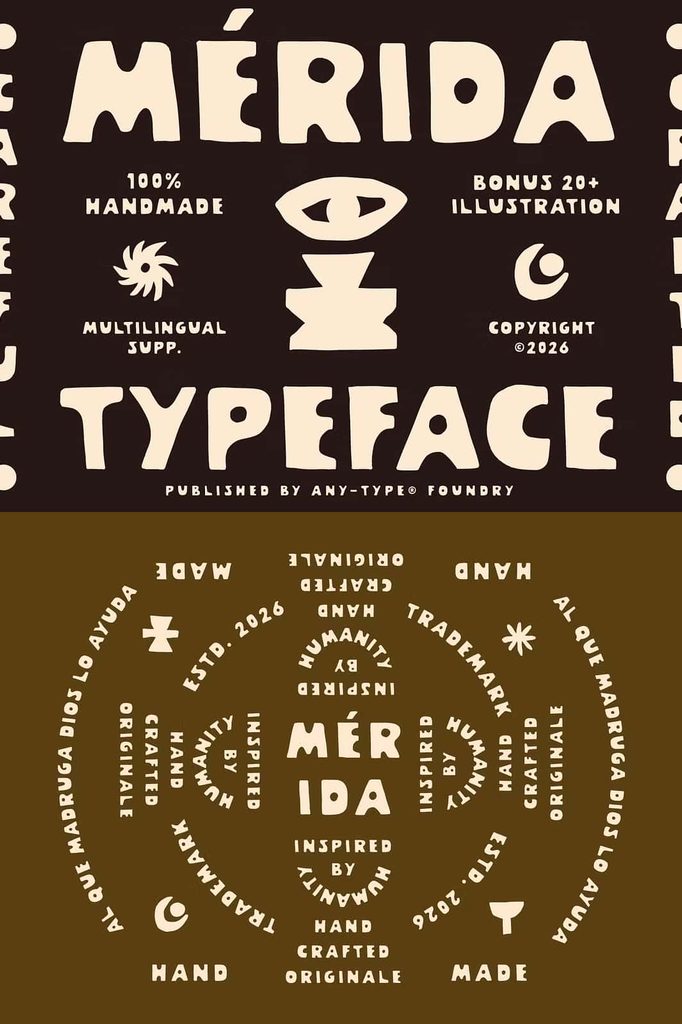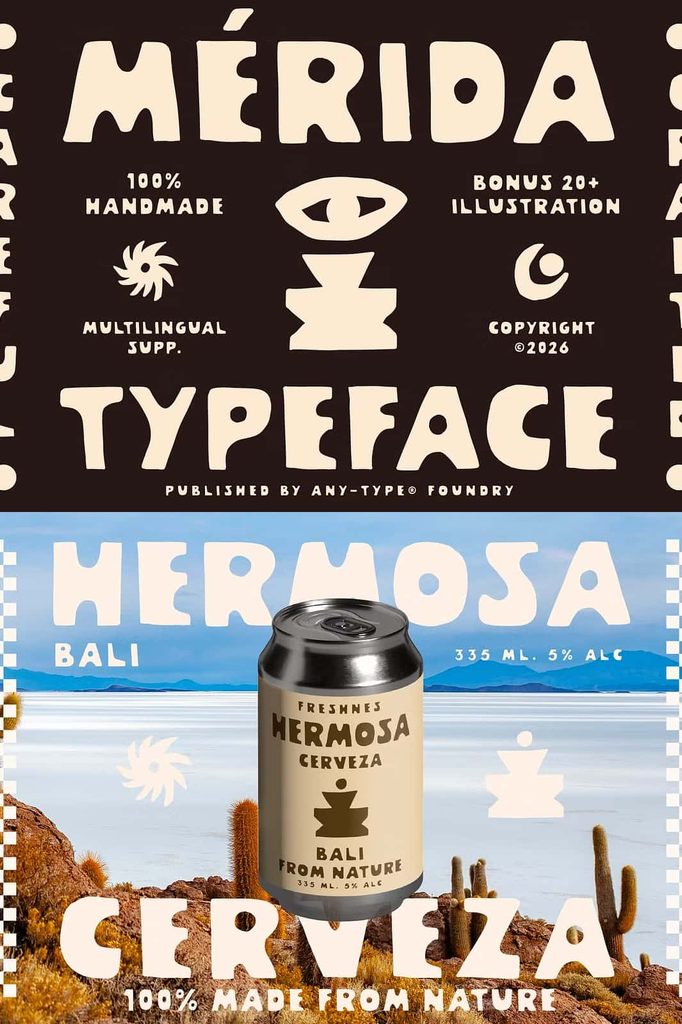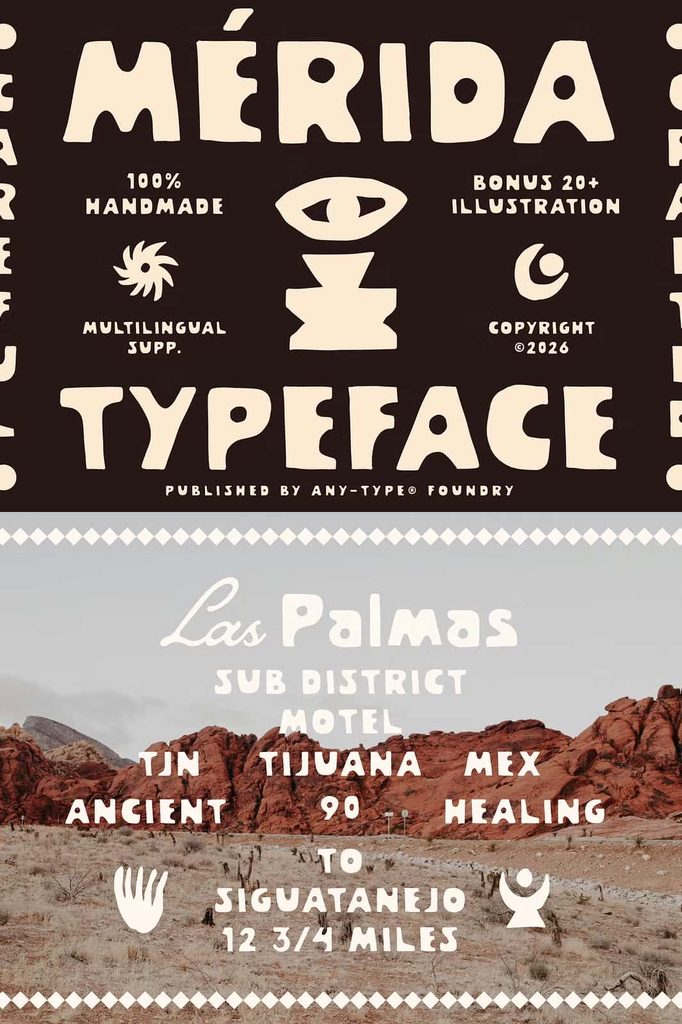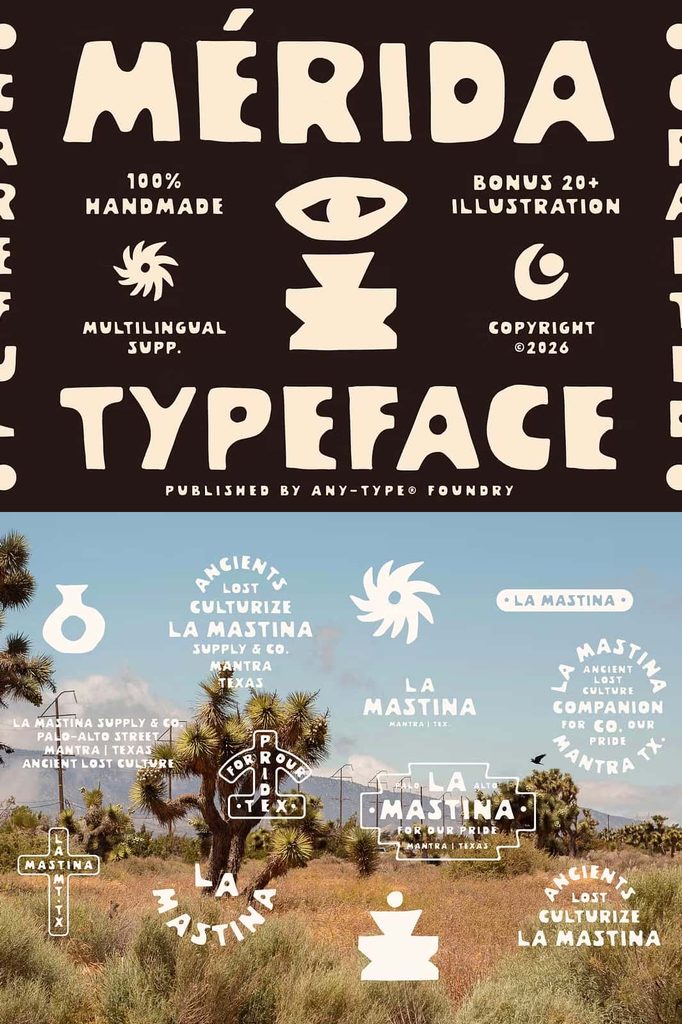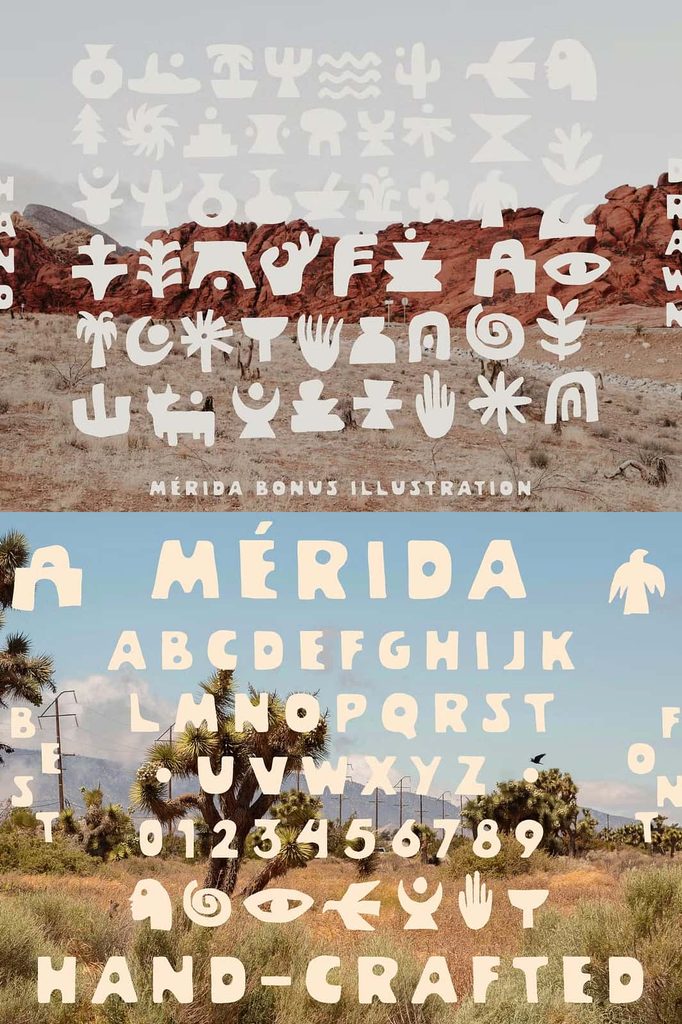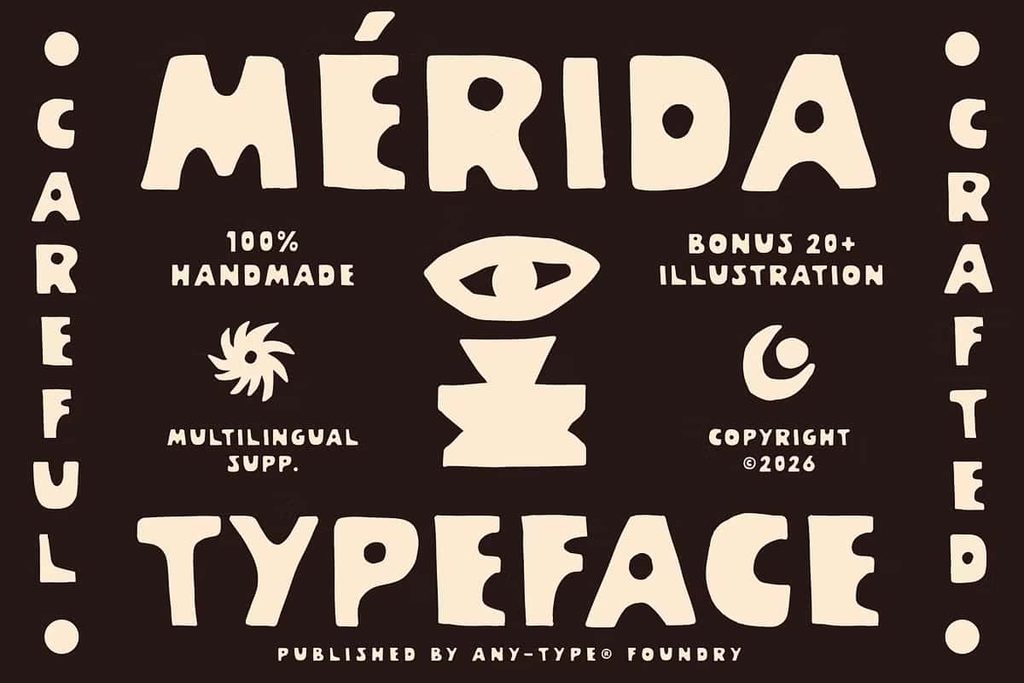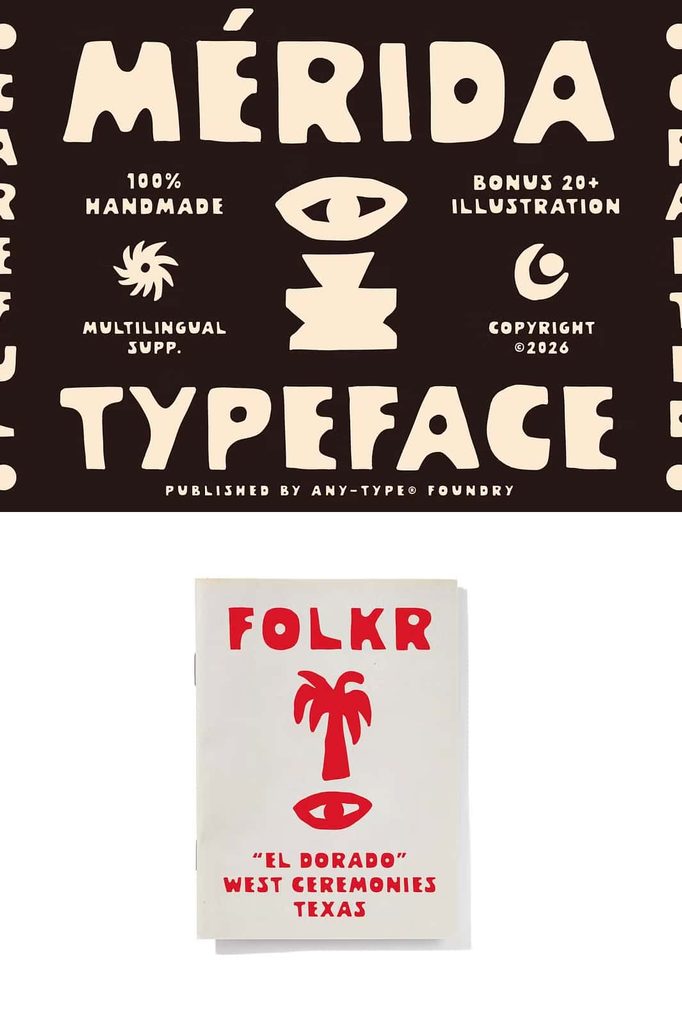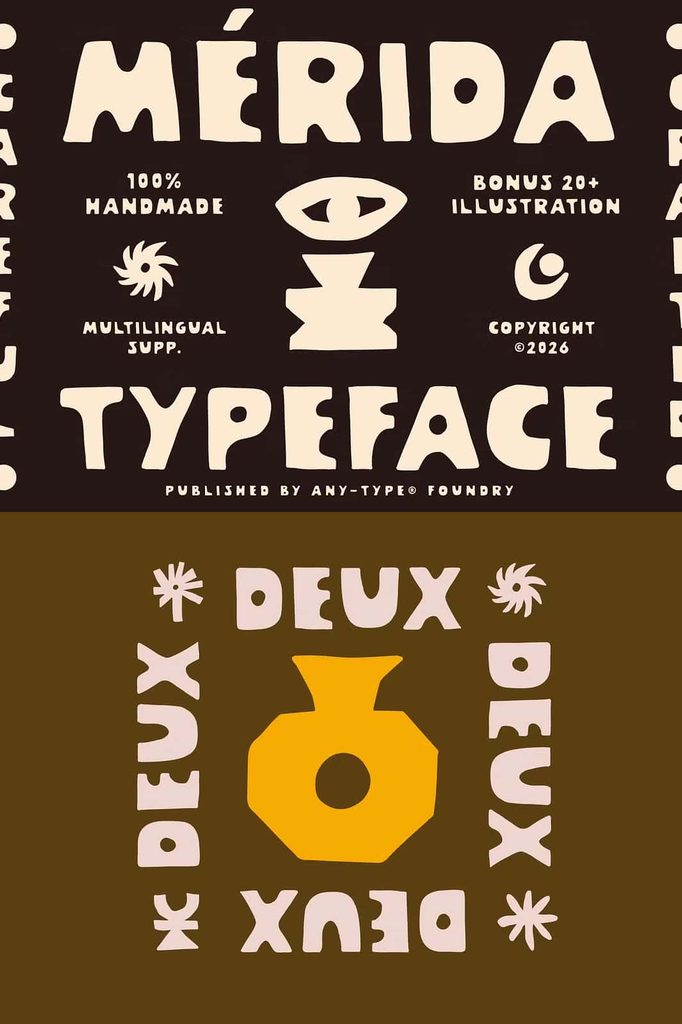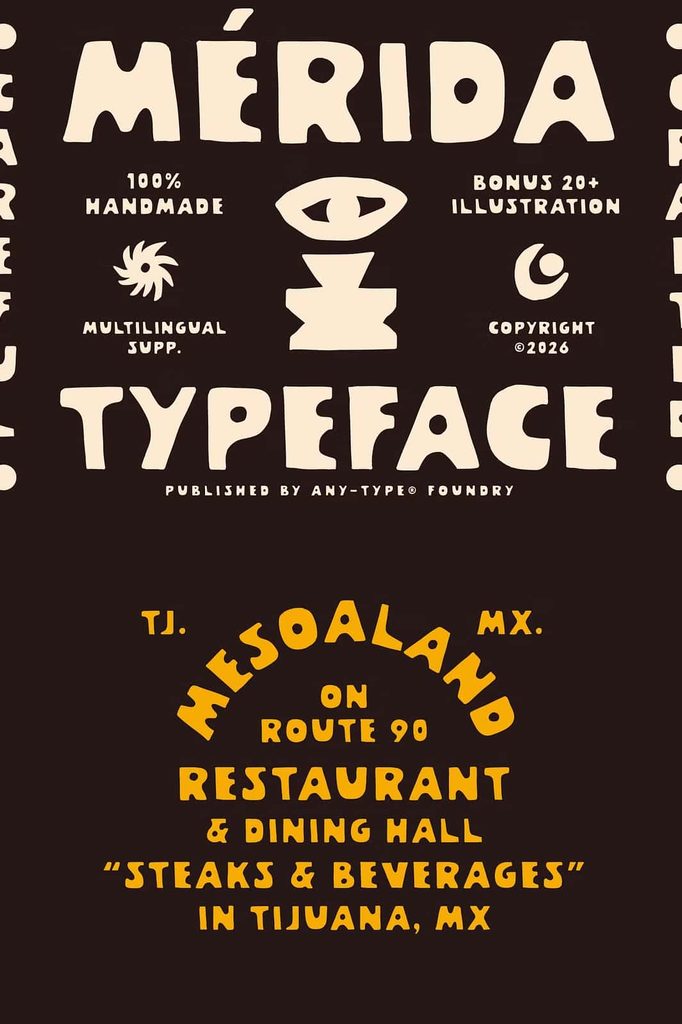
Merida Font – A Bold Handmade Display Typeface
Merida Font brings warmth, personality, and handcrafted character to modern typography. Inspired by folk art, vintage signage, and playful organic shapes, Merida transforms ordinary lettering into expressive visual artwork. Every character carries the charm of handmade design, featuring imperfect curves, subtle irregularities, and carefully crafted shapes that create a natural human touch.
Rather than relying on perfectly uniform geometry, Merida embraces controlled imperfections. These distinctive details give the typeface an authentic artisanal quality and help each word feel more personal. The bold letterforms establish a strong visual presence, while the friendly proportions maintain excellent readability. This combination makes Merida an effective choice for designers who want their typography to communicate creativity, warmth, and confidence.
Merida works especially well when a project needs personality. Use it for branding, packaging, posters, logos, apparel, album covers, editorial headlines, social media graphics, and other creative projects. Its expressive appearance allows designers to create memorable compositions while maintaining a clear and approachable typographic structure.
Inspired by Folk Art and Vintage Signage
Merida draws inspiration from the visual language of folk art and traditional hand-painted signs. These influences give the typeface a nostalgic personality without limiting it to historical design styles. Its organic shapes and irregular details create the feeling of lettering made by hand, giving contemporary projects a more authentic and approachable appearance.
Vintage signage often communicates through strong silhouettes, simple forms, and memorable lettering. Merida captures these qualities and adapts them for modern graphic design. Its bold construction helps headlines and brand names command attention, while its handmade details prevent the typography from feeling generic or mechanical.
Use Merida alongside vintage illustrations, textured backgrounds, handcrafted graphics, or simple layouts to strengthen its retro-inspired character. Alternatively, place it in a clean contemporary composition to create an interesting contrast between handmade typography and modern design.
A Handmade Typeface with Organic Character
One of Merida’s defining qualities is its organic construction. The letters feature imperfect curves and charming irregularities that mimic the natural movement of hand-drawn lettering. These details give the typeface an approachable personality that polished digital fonts often struggle to reproduce.
The handmade character also helps Merida communicate authenticity. It can make a small brand feel more personal, a product package feel more crafted, or a poster feel more expressive. The typeface does not simply display words; it contributes an emotional quality to the overall design.
Because the imperfections remain carefully controlled, Merida retains a strong sense of structure. Designers can therefore use it confidently for large display text without sacrificing readability or visual balance.
Bold Letterforms That Stand Out
Merida uses bold silhouettes to create immediate visual impact. Its substantial forms make headlines, logos, and short phrases easy to notice, even when placed within busy compositions. This strong presence makes the typeface particularly effective for display typography.
Use large Merida lettering to create attention-grabbing titles and prominent brand names. You can also experiment with spacing, scale, and alignment to create different visual moods. Tight spacing can produce a compact and energetic appearance, while generous spacing can emphasize the unique shapes of individual characters.
The bold construction also allows Merida to work effectively across both print and digital applications. Its distinctive forms can remain recognizable on packaging, posters, merchandise, social media graphics, websites, and promotional materials.
Perfect for Branding and Logo Design
Merida Font provides an excellent foundation for distinctive branding. Its handmade personality helps businesses move away from generic visual identities and create a more memorable presence. Use it for wordmarks, brand names, product titles, badges, labels, and supporting promotional graphics.
Merida works particularly well for brands connected to handmade goods, food and beverage, lifestyle products, creative businesses, fashion, music, outdoor culture, and independent retail. Its friendly appearance can help a brand feel approachable while its bold structure communicates confidence.
For logo design, consider using Merida as the primary display typeface and pairing it with a simpler supporting font. This approach creates a clear hierarchy while allowing the handmade lettering to remain the visual focus.
Merida Font for Packaging Design
Packaging designers can use Merida to create products that immediately attract attention. Its bold shapes work especially well on labels, boxes, bags, bottles, wrappers, and product tags. The handcrafted appearance can reinforce concepts such as authenticity, small-batch production, creativity, and traditional craftsmanship.
Combine Merida with simple illustrations, organic patterns, or textured surfaces to develop a cohesive handmade aesthetic. You can also place the typeface against a clean background to let its irregular letterforms provide the primary visual interest.
Create Eye-Catching Posters
Merida makes a strong choice for posters and promotional artwork because it naturally creates a focal point. Use the typeface for event titles, campaign headlines, announcements, or short statements that need immediate attention.
Its expressive personality works particularly well with bold compositions and playful layouts. Experiment with oversized lettering, curved arrangements, layered typography, or contrasting supporting elements to create dynamic poster designs.
Apparel and Merchandise Design
Bring Merida Font into apparel and merchandise projects to create bold graphics with a handcrafted feel. Apply it to T-shirts, sweatshirts, hats, tote bags, stickers, posters, patches, and other promotional products.
The typeface can help merchandise feel more personal and creative. Its strong silhouettes remain effective when printed at different sizes, while the handmade details add visual character that helps designs stand apart from standard commercial typography.
Album Covers and Editorial Headlines
Merida can also add personality to album covers, music posters, magazine headlines, book covers, and editorial artwork. Its expressive forms can establish a distinctive visual mood before the audience reads the supporting content.
For album artwork, pair Merida with photography, illustration, or textured graphics to create a memorable visual identity. For editorial layouts, use it selectively for major headlines and combine it with a clean text font for longer passages. This strategy allows Merida to make an impact without overwhelming the page.
Ideal Creative Projects for Merida
- Brand identities and wordmarks
- Logo and badge designs
- Product packaging and labels
- Posters and promotional graphics
- Apparel and merchandise
- Album covers and music artwork
- Magazine and editorial headlines
- Handmade product branding
- Vintage-inspired advertising
- Event graphics and signage
- Creative personal projects
Why Choose Merida Font?
Merida stands apart by combining bold typography with authentic handmade character. Its folk-art inspiration, vintage signage influence, organic shapes, and controlled imperfections create a distinctive personality that can elevate many types of design.
The typeface gives designers a practical balance between expression and readability. Its strong silhouettes attract attention, while its friendly proportions keep words clear and approachable. This makes Merida suitable for projects that need to communicate creativity without sacrificing usability.
Most importantly, Merida adds a human quality to digital design. Its irregular curves and handcrafted details make compositions feel less mechanical and more personal. Whether you create a small brand identity or a large promotional campaign, the typeface can help establish a visual voice that audiences remember.
Bring Handmade Personality to Your Designs
Merida Font offers a bold and expressive approach to display typography. By combining the charm of folk art, the nostalgia of vintage signage, and the playful character of organic shapes, it gives designers a flexible tool for creating memorable visual work.
Use Merida to build confident logos, expressive packaging, striking posters, distinctive apparel, creative album covers, and engaging editorial headlines. Let its imperfect curves and handcrafted details introduce warmth and authenticity into your compositions. Whether you design for a commercial brand or a personal creative project, Merida can provide the character needed to make your typography stand out.
Choose Merida when you want more than ordinary lettering. Build designs that feel handmade, approachable, artistic, and full of personality with a display typeface designed to make every word more memorable.